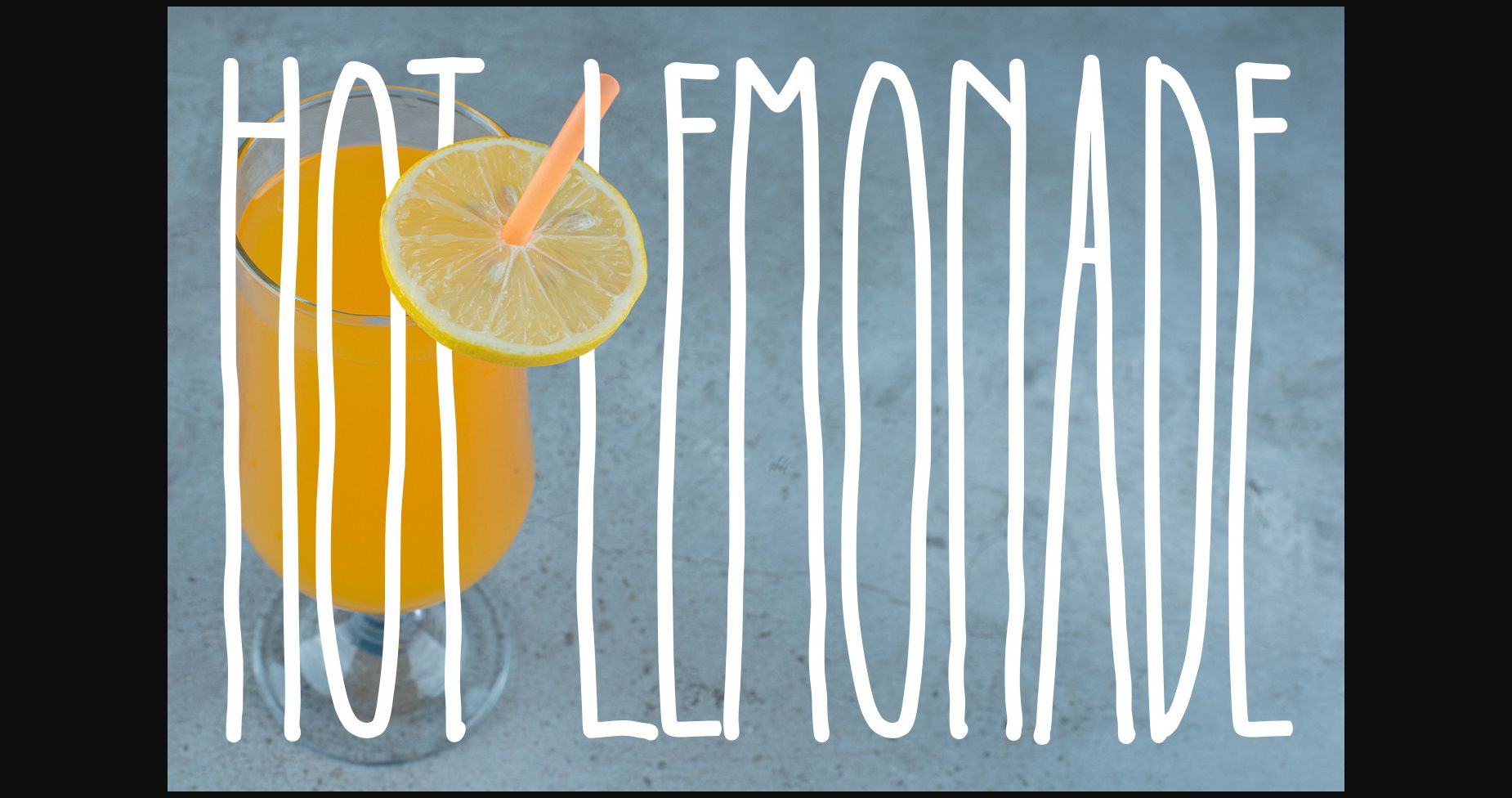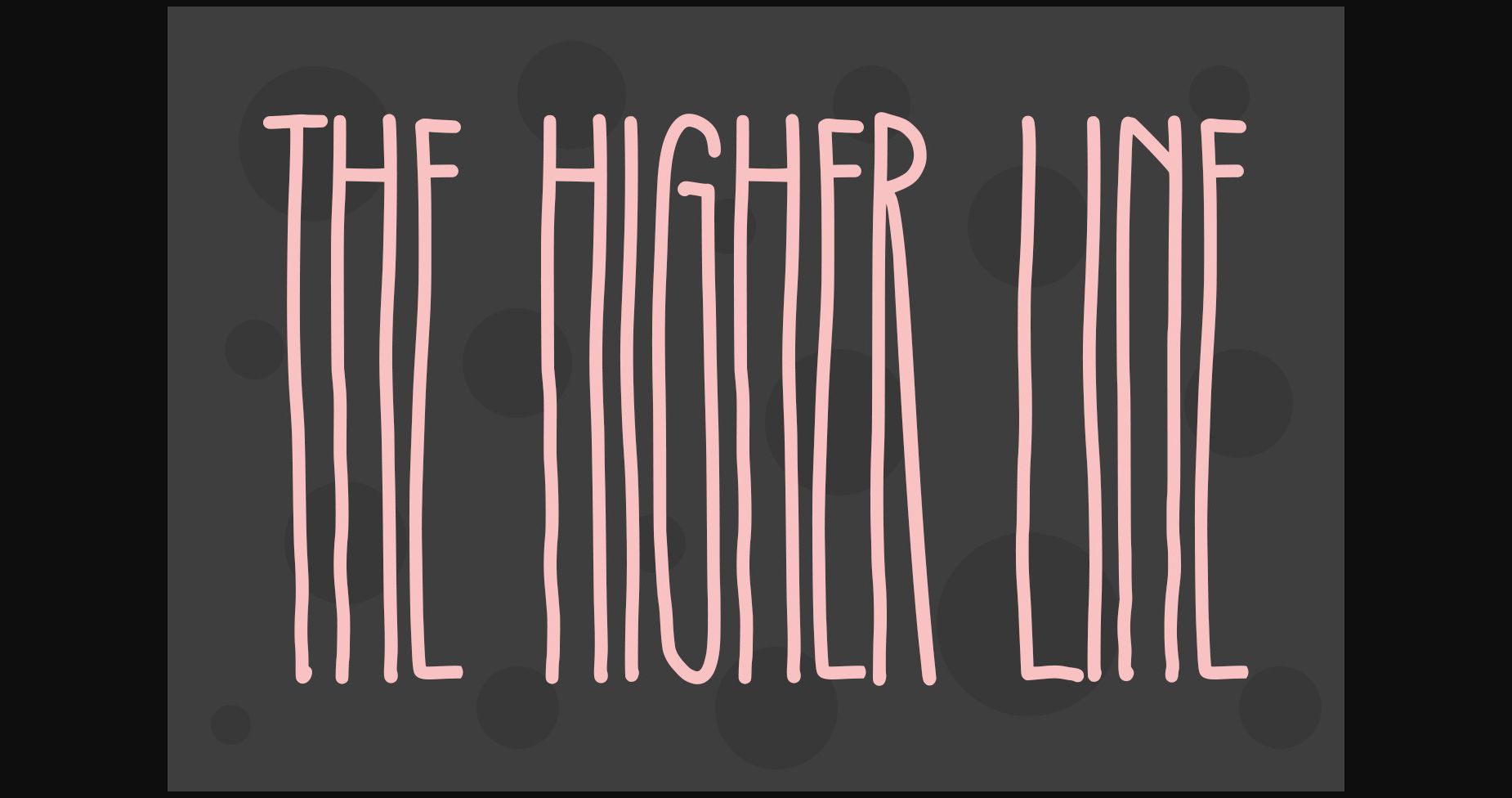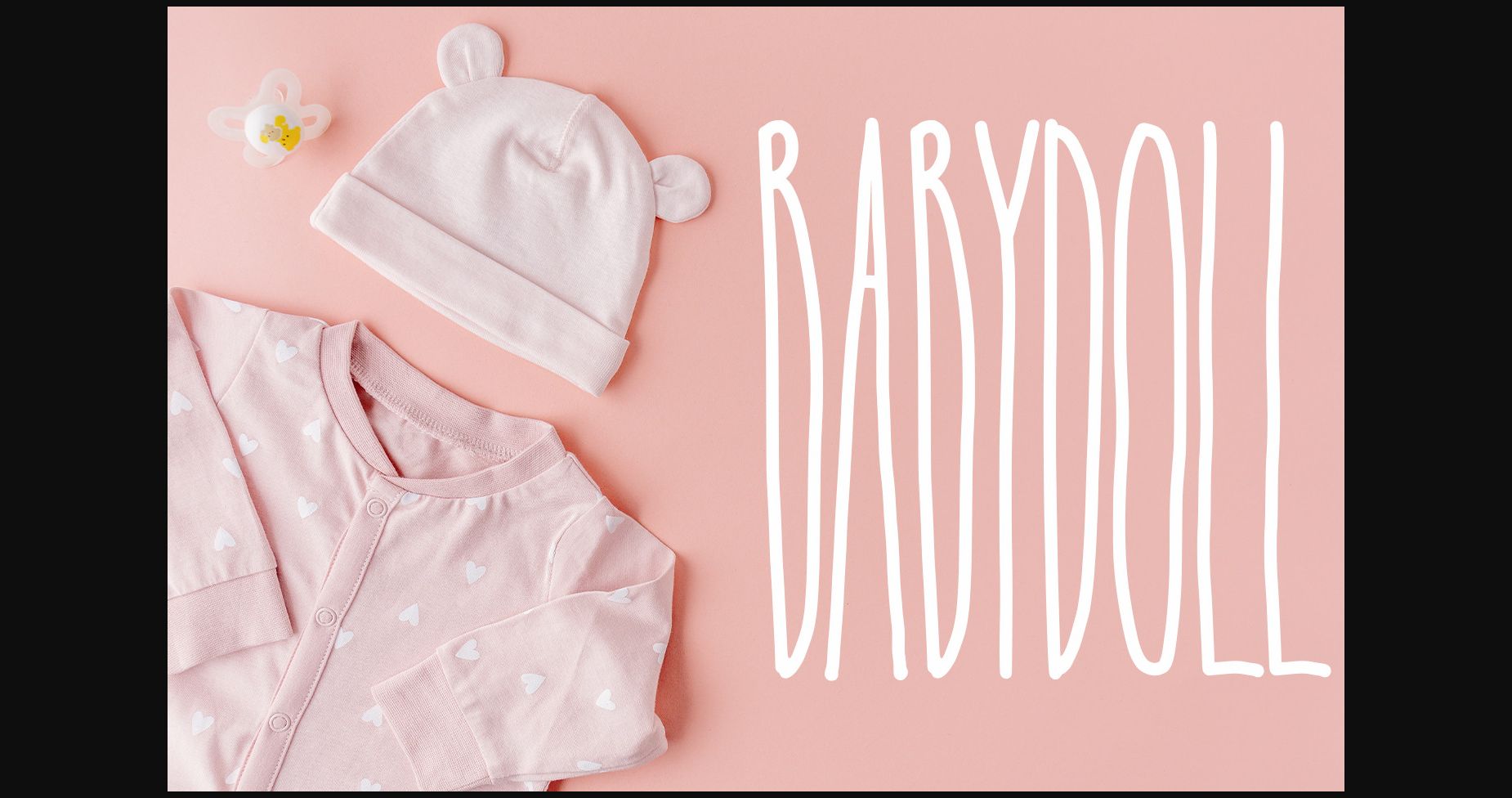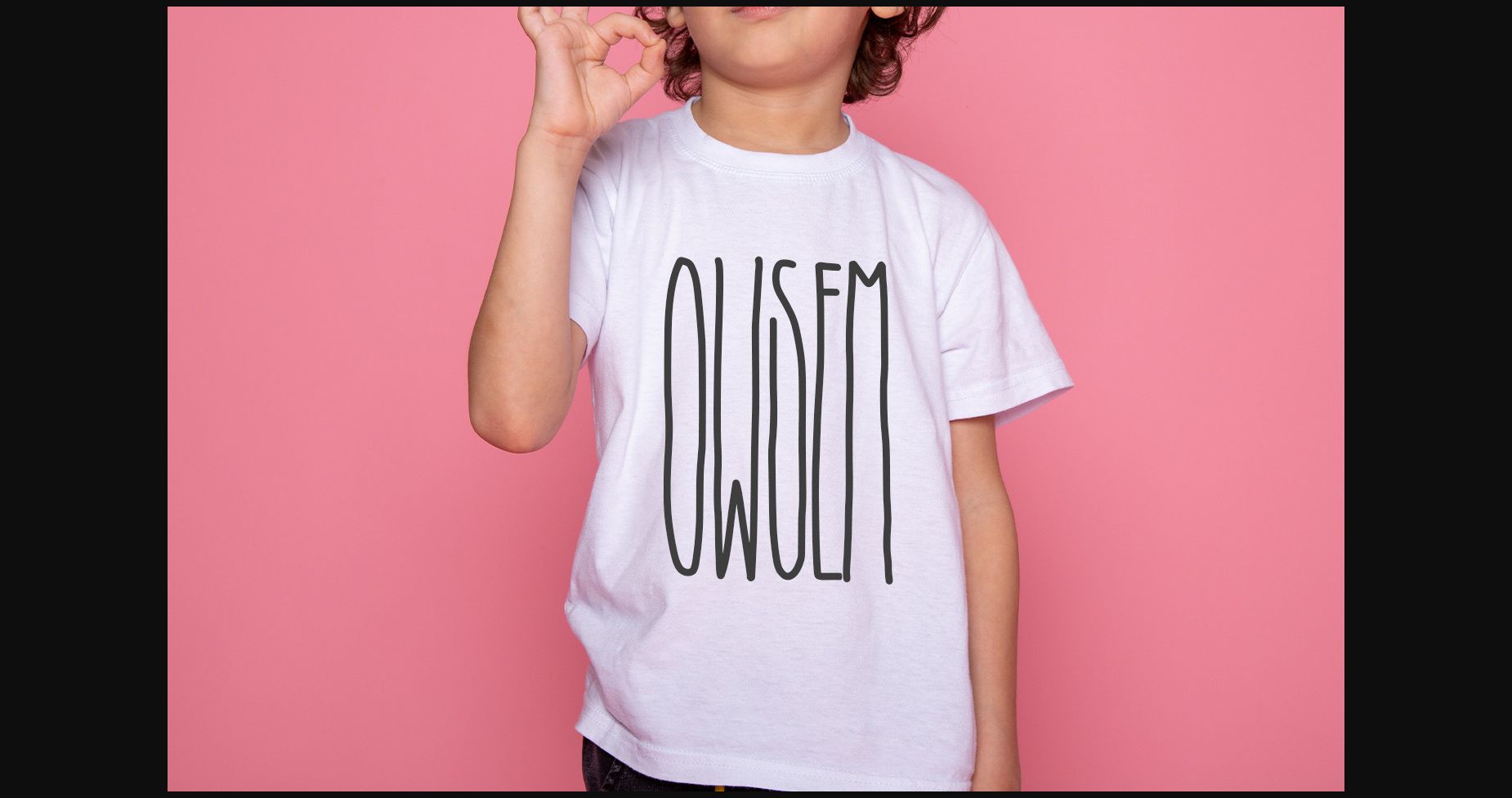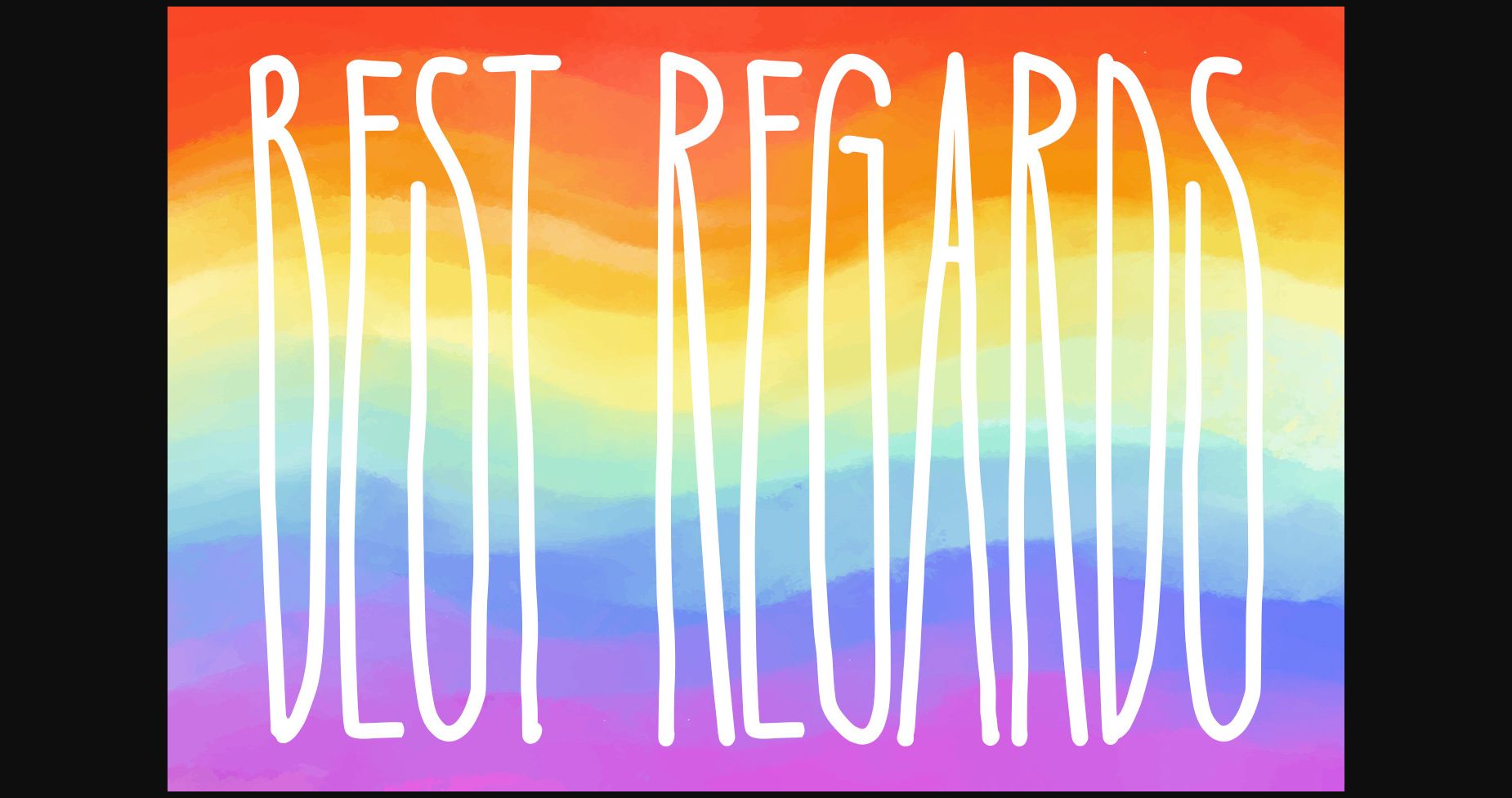
Hot Lemonade Font
About Hot Lemonade Font
Hot Lemonade is a tall, thin lettered and cute sans serif font. It is great for titling, logo, t-shirt designs, mugs, tote bag designs, cards, banners, social media, and anything related to craft projects.